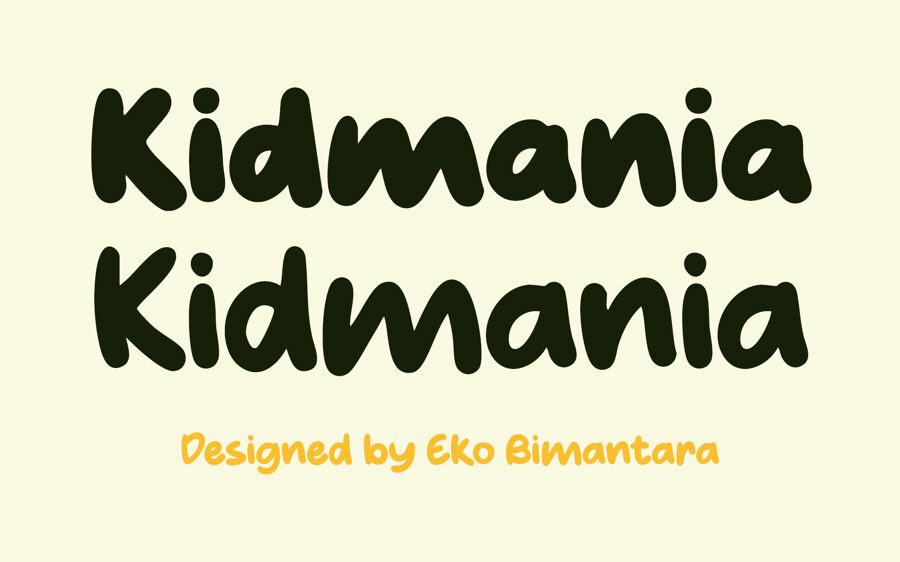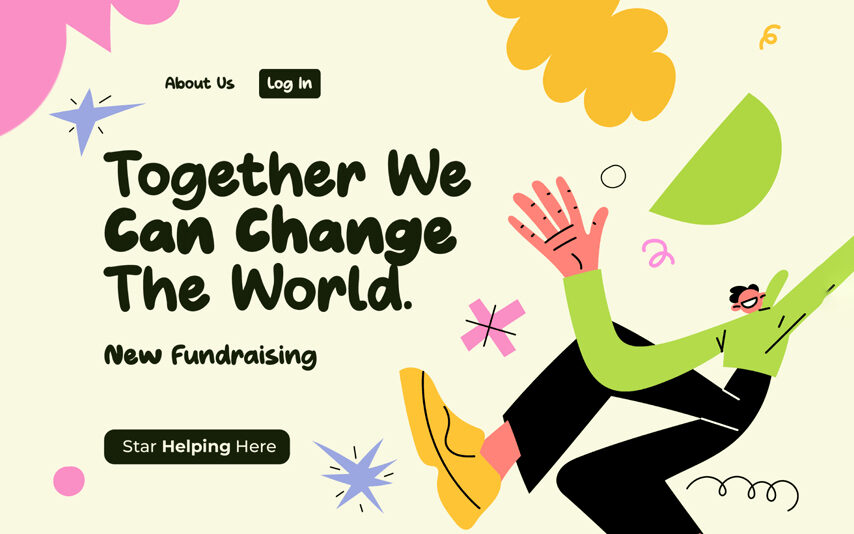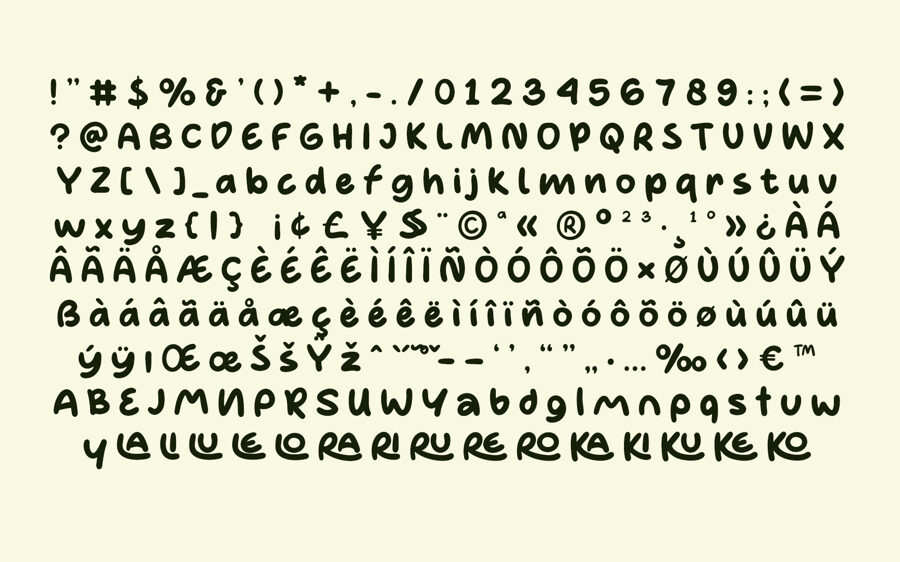
Kidmania is a playful comic-style display font by Eko Bimantara. Its bold, rounded letterforms create a cheerful, energetic look that works well for children’s books, toys, posters, logos, packaging, classroom materials, and fun branding. Available in Regular and Bold styles, it adds a friendly, imaginative personality while keeping headlines clear and eye-catching.